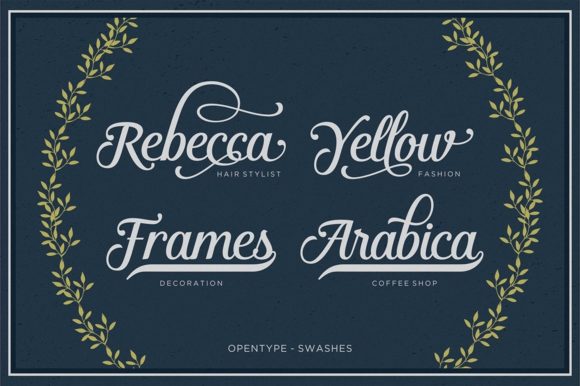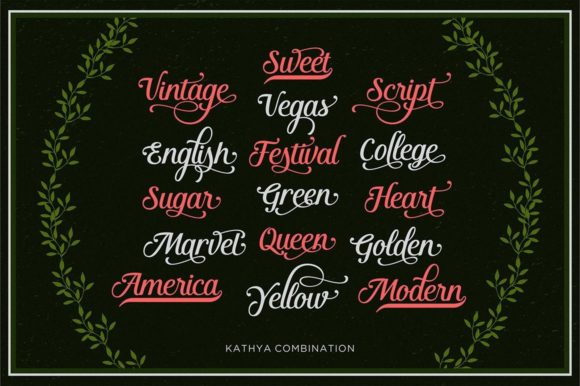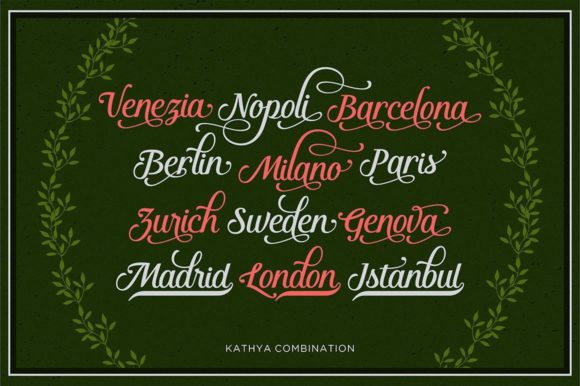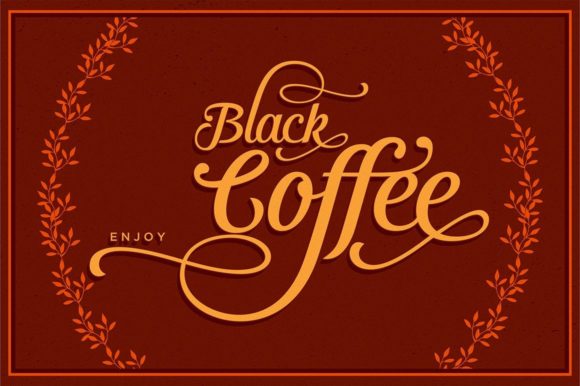
Kathya Script Font
About Kathya Script Font
Kathya Script is a contemporary script font, a mixture of retro and modern styles. It can be used for various purposes such as logos, wedding invitation, t-shirt, letterhead, signage, labels, news, posters, badges and more. This font is PUA encoded which means you can access all of the glyphs and swashes with ease!